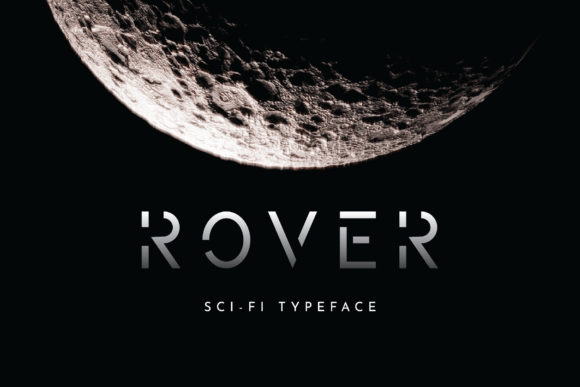
Behold Rover Font, a futuristic display font that propels your creativity into the stratosphere! Immerse yourself in the world of modern websites and graphic design, where innovation and aesthetics converge. With its distinctive abstract glyphs, Rover Font transforms mundane text into captivating visual experiences.
Unleash your imagination and craft logos that radiate with a touch of the future. Command attention on social media platforms with posts that leap off the screen, leaving an indelible mark on your audience. Create banners that transport viewers to uncharted territories, capturing their gaze and igniting their curiosity. The possibilities are limitless, awaiting your artistic touch to bring them to life.
Step into the realm of avant-garde typography and redefine the boundaries of visual communication. Let Rover Font be your guide as you navigate the digital landscape, leaving a trail of awe-inspiring creations in your wake. Embrace the power of innovation and leave an indelible mark on the world of design.